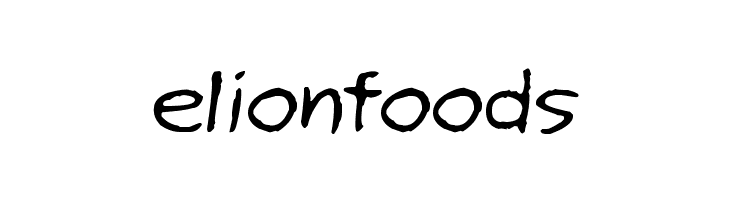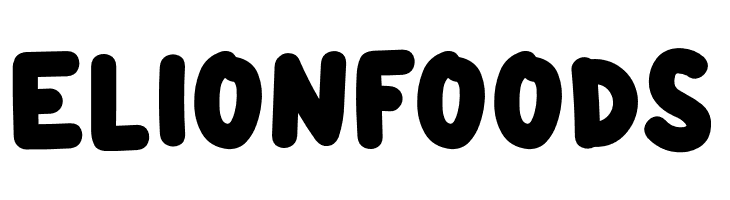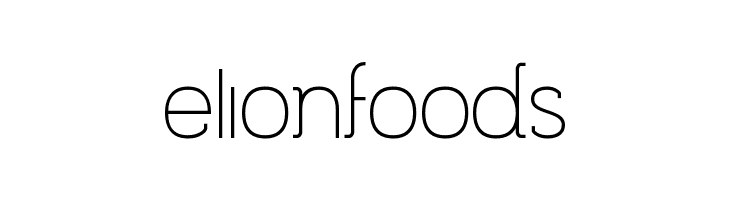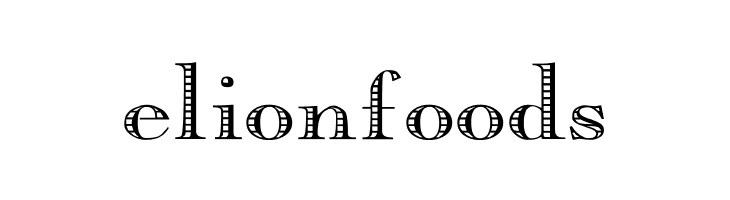
Bold, playful decorative font with heart and pattern motifs.
An elegant script font with graceful curves and sophisticated style.
A playful, handwritten font with a casual and whimsical style.
A dynamic, handwritten font with bold, sweeping strokes and artistic flair.
A bold, cursive script font with dynamic and expressive strokes.
A bold, flowing script font with elegant curves and interconnected letters.
An elegant, flowing script font with graceful cursive strokes.
A bold, handwritten script font with a smooth, flowing style.
An elegant and flowing script font with intricate loops and swashes.
A bold, geometric font with a futuristic and modular design.
A bold, geometric font with a futuristic and modern design.
A dynamic, handwritten font with a casual and expressive style.
A dynamic, handwritten font with an expressive and casual style.
A bold, brush-style font with dynamic, handwritten characteristics.
A playful, handwritten font with fluid, interconnected strokes.
A decorative font featuring whimsical and artistic illustrations within each character.
A bold, playful handwritten font with thick, rounded strokes and a cohesive flow.
A bold, italic script font with dynamic and fluid characters.
A whimsical and artistic font with fluid swash elements.
A bold, brush-stroke style font with dynamic and textured characters.
A modern stencil font with geometric shapes and cut-out sections.
A bold, geometric font with a pixelated, retro style.
An illustrative, cartoon-style decorative font with unique artwork for each character.
A dynamic and fluid script font with elegant, flowing lines.
A bold, 3D hand-drawn font with a playful, geometric style.
A bold, impactful font with strong, consistent strokes and dynamic character design.
A fluid and elegant script font with smooth, flowing lines.
A modern, abstract font with fragmented, distressed letterforms.